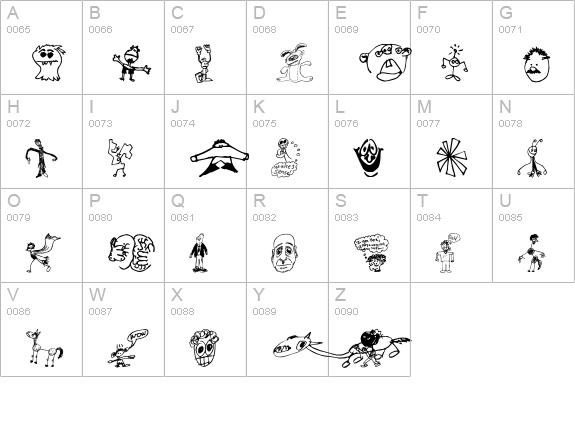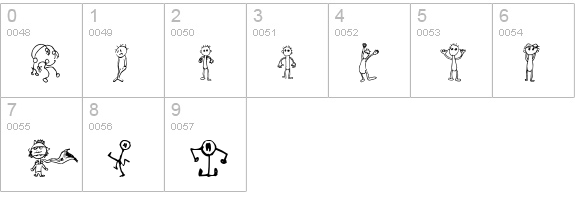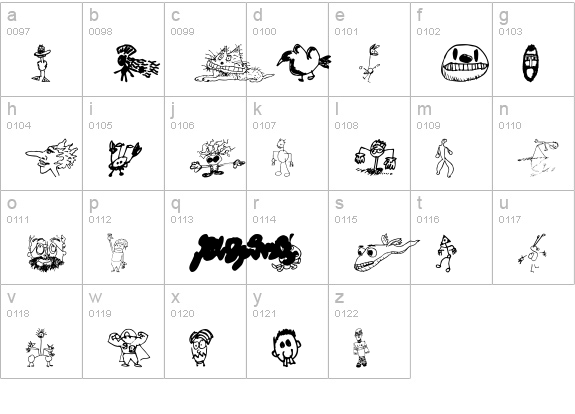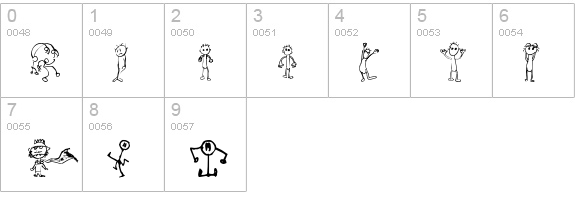
Brian Powers Doodle 2 1 Font Details
Brian Powers Doodle 2 1 font is a whimsical and creative typeface designed to add a touch of playfulness to your projects. This unique font features hand-drawn doodles that bring a fun and artistic flair to any design. With its quirky characters and charming details, Brian Powers Doodle 2 1 font is perfect for adding a personal touch to invitations, posters, and more. The best part? This delightful font is available for free download at FontsMarket.com! Now you can easily access and use Brian Powers Doodle 2 1 font in your projects without any cost. So why wait? Add a dash of creativity to your designs with this charming and freely available font today!